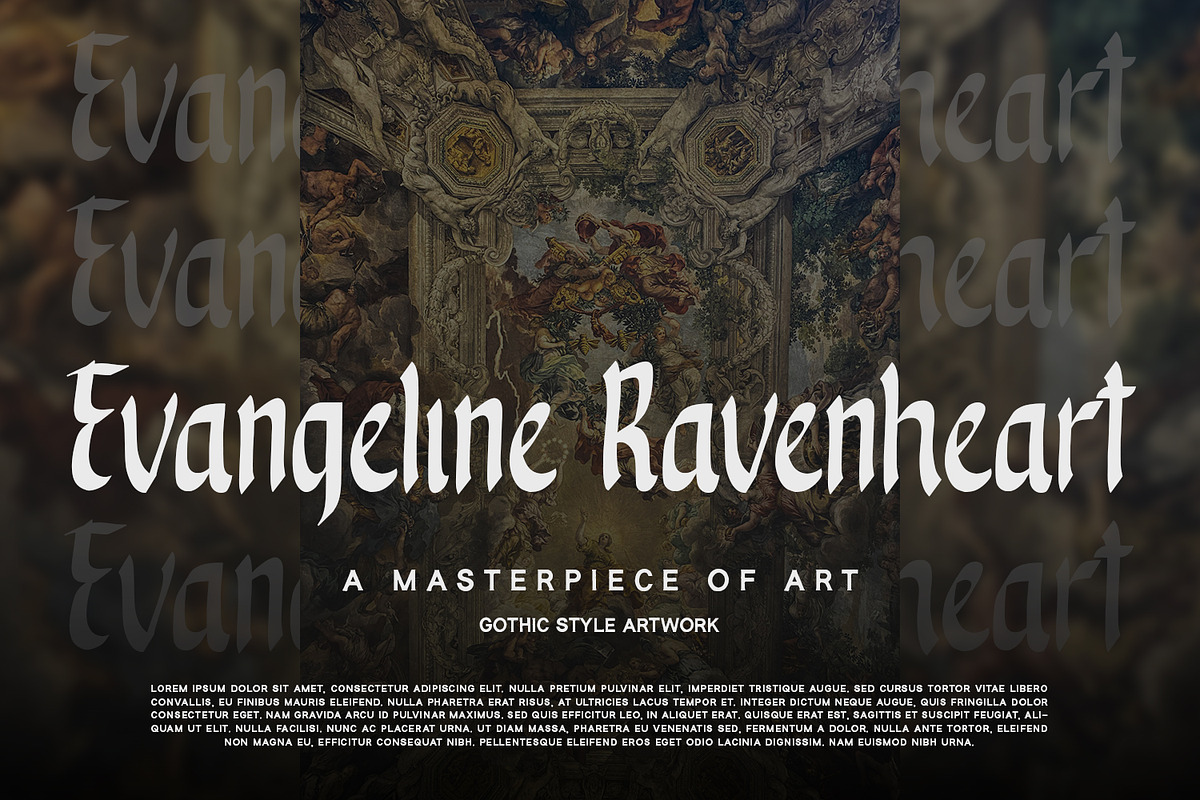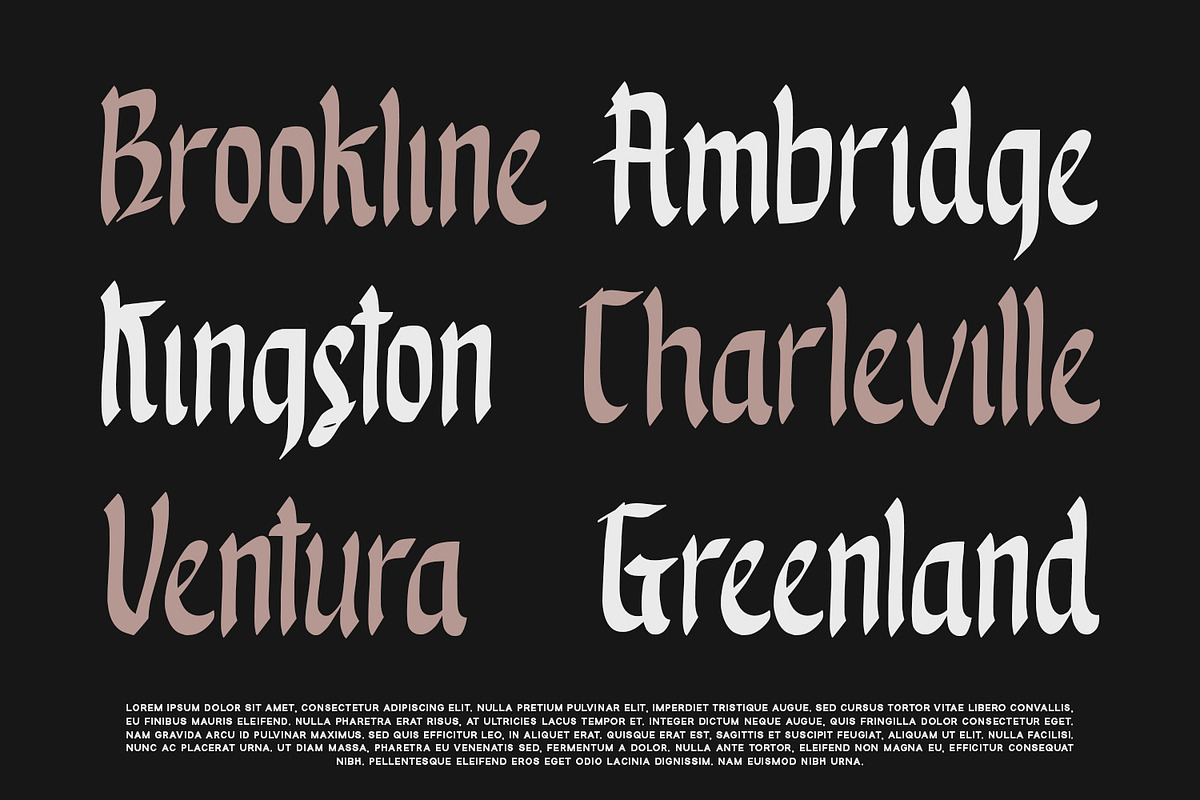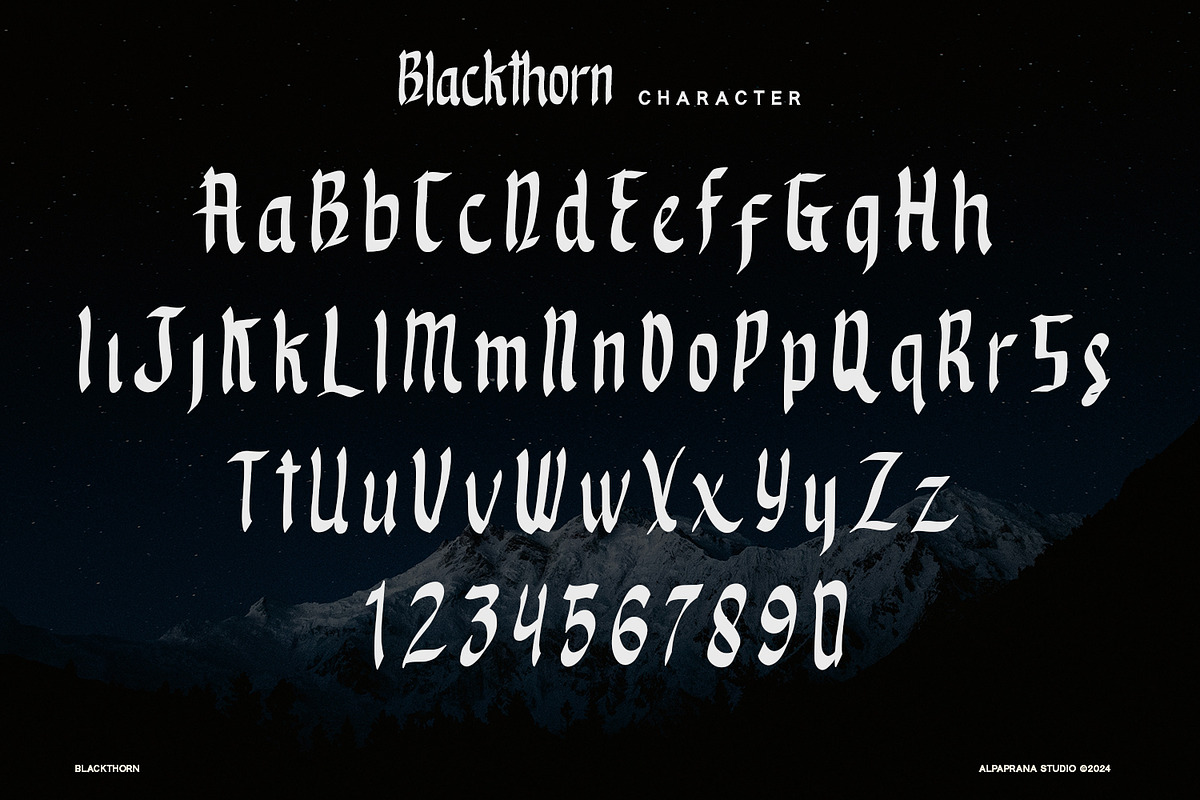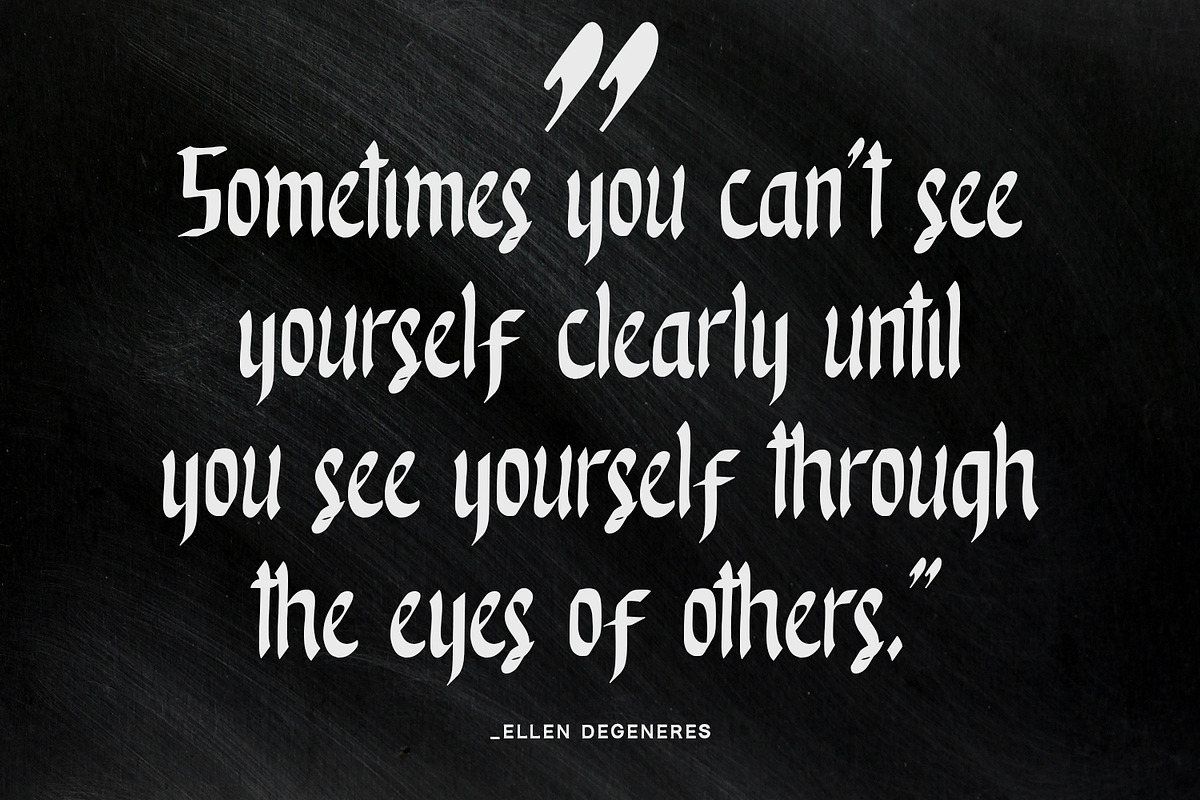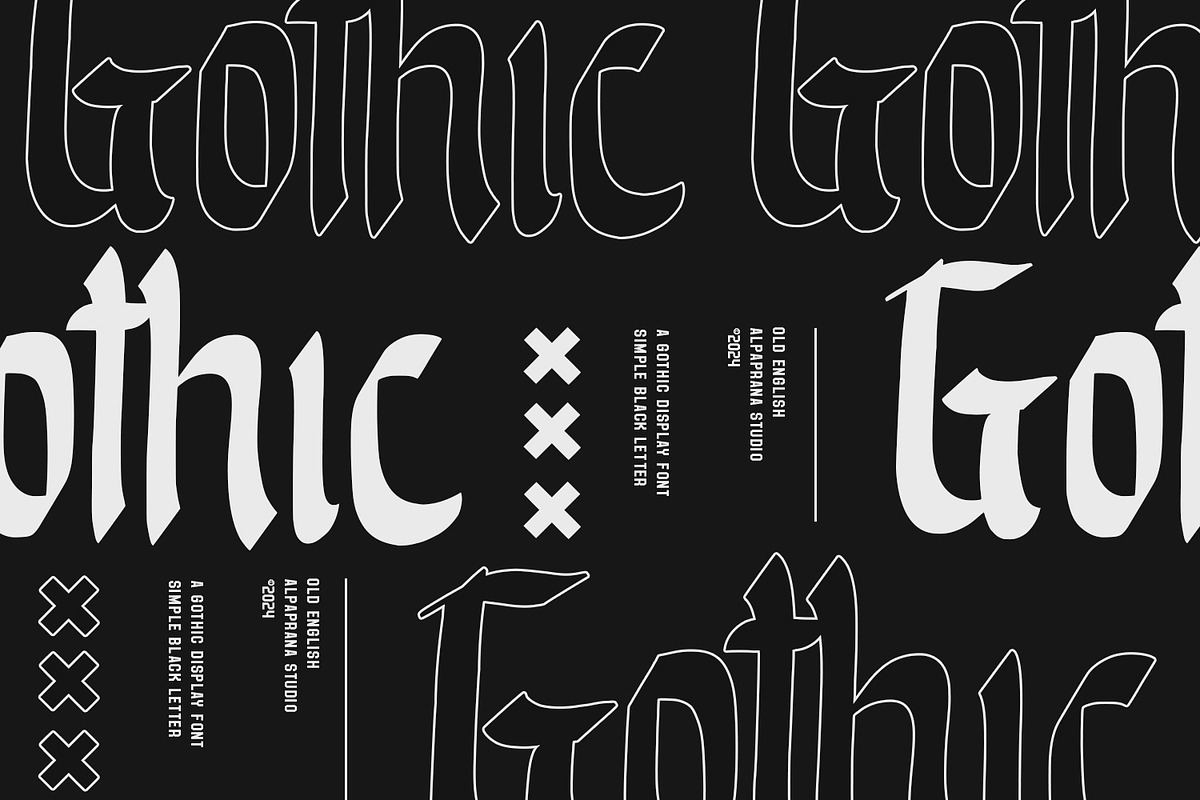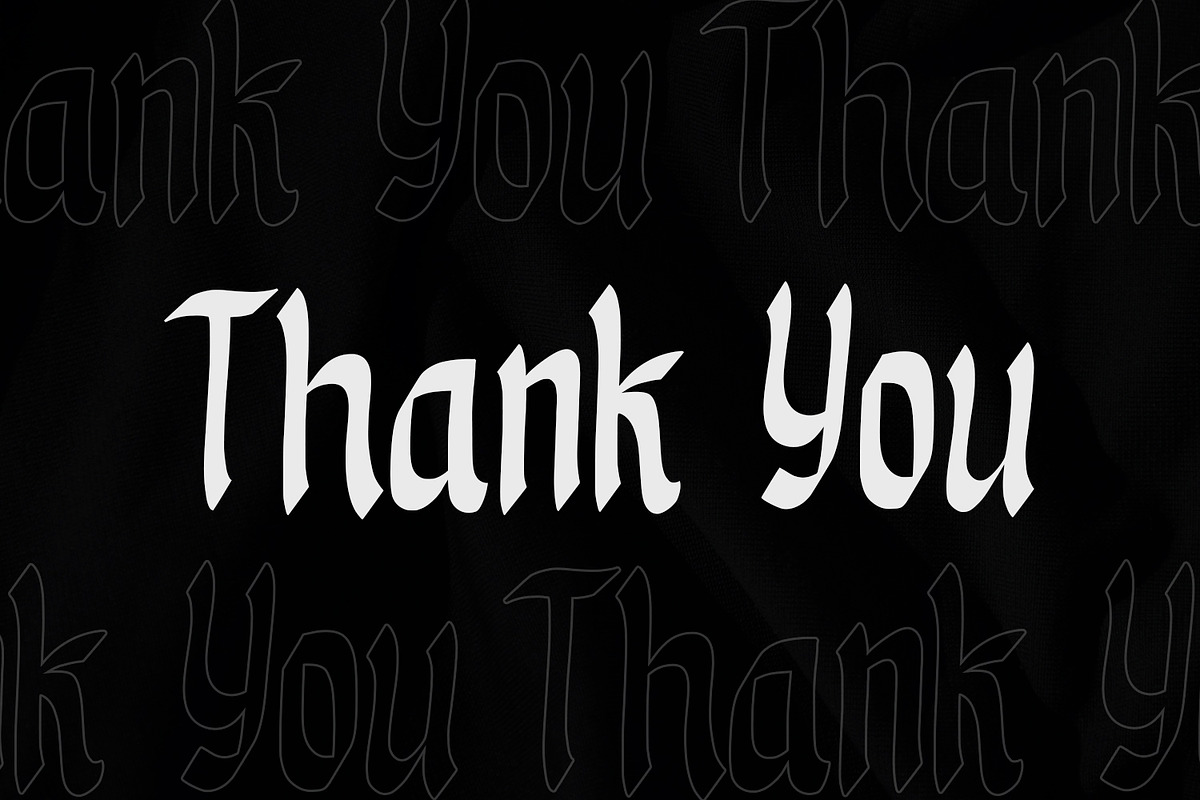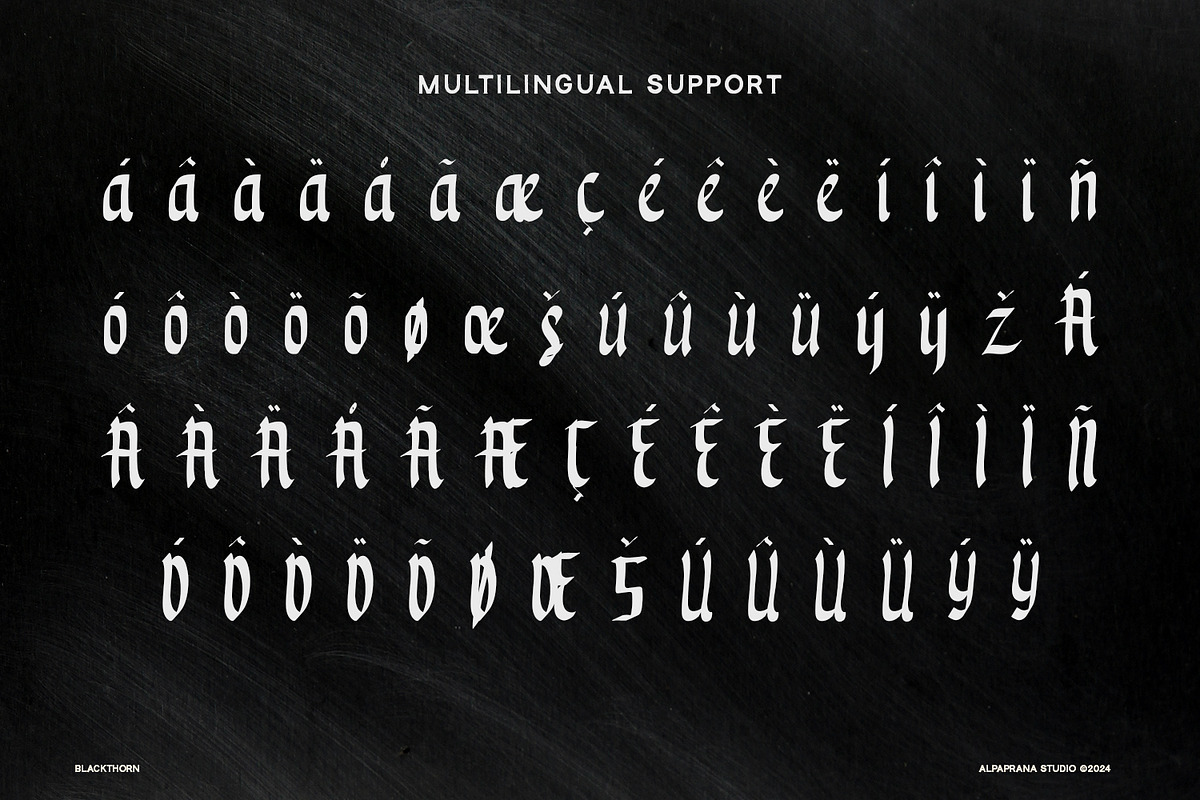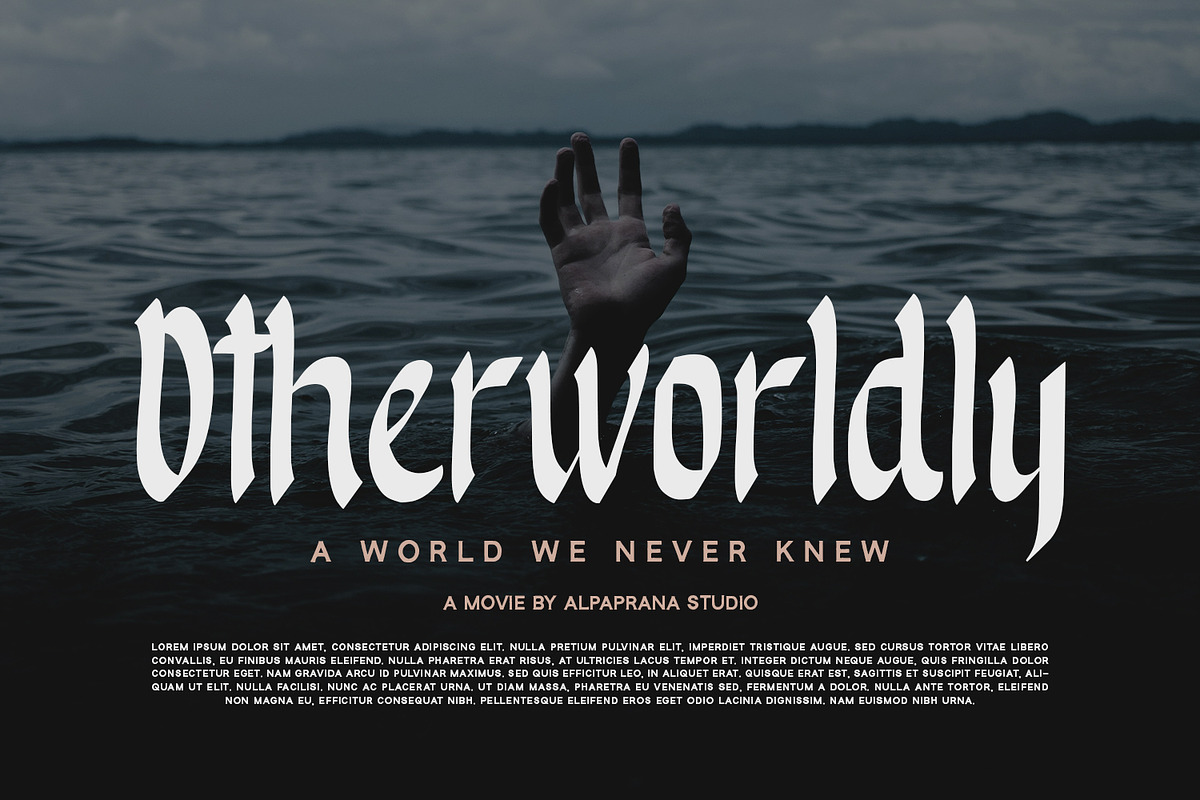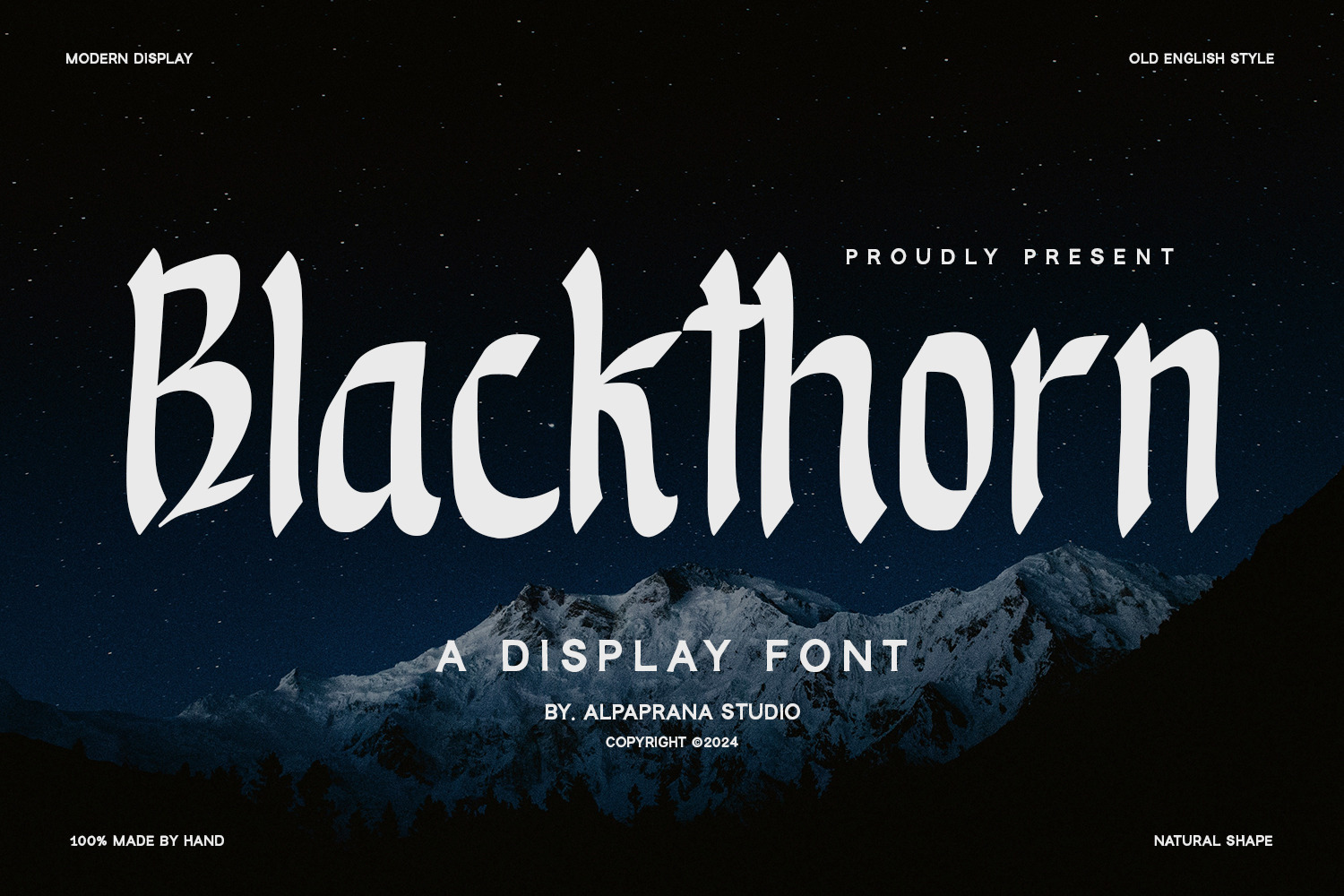
Blackthorn - Display Font
Blackthorn is a display font with unique and modern feels. It will be perfectly used for Branding, Logo Design, Lettering, Logotype, Clothing, Poster, magazine, packaging, posters, shopping bags, t-shirts, book covers, photography, special events and other design project.